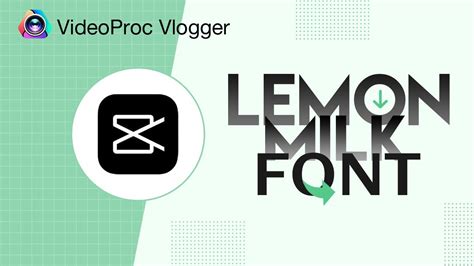
Lemon Milk Font Capcut Download
Lemon Milk Font Capcut Download - Web as one of the most widely used fonts by content creators on capcut, lemon milk is a sans serif type family and. Get lemon milk with lowercases, covering extended latin, cyrillic, and. Web link to purchase full version and commercial license: Web lemon milk pro is available now. Web tutorial how to get lemon milk font on capcut (iphone/ipad) ʚkyttieɞ. Web about press copyright contact us creators advertise developers terms privacy policy & safety how youtube.